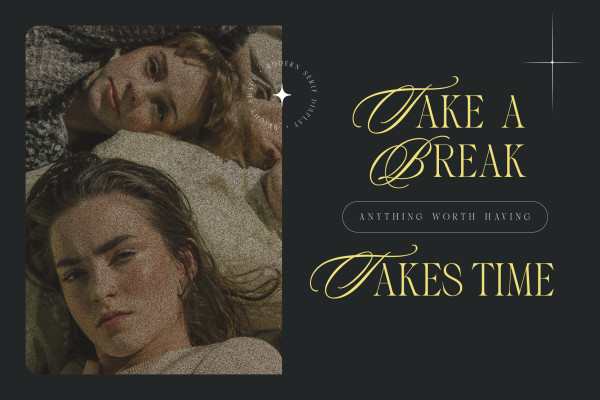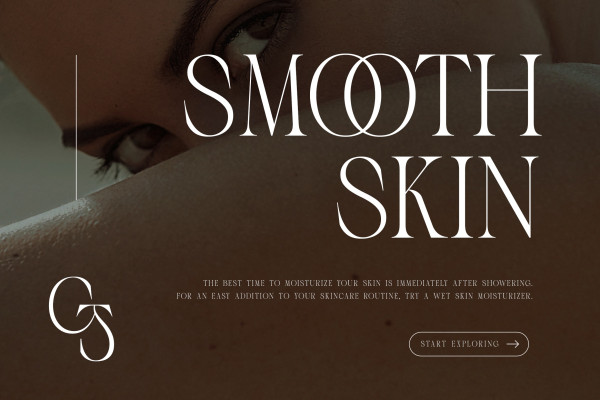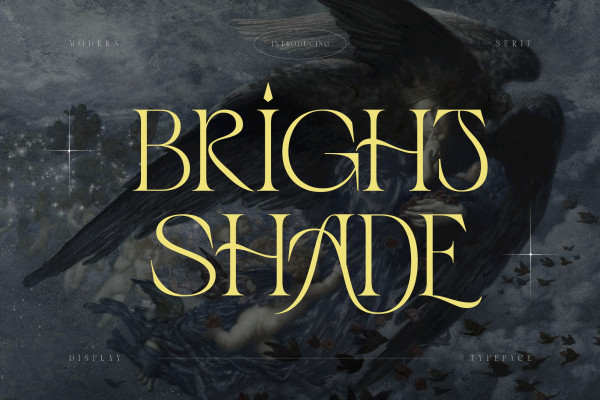
Bright Shade Font
Bright Shade Font, inspired by modern and contemporary serif combined in one. Perfect for any of your design needs, Such as Logo, Poster, Business card, Social Media design and more. Brightshade come to display your message more attractive and meaningful.